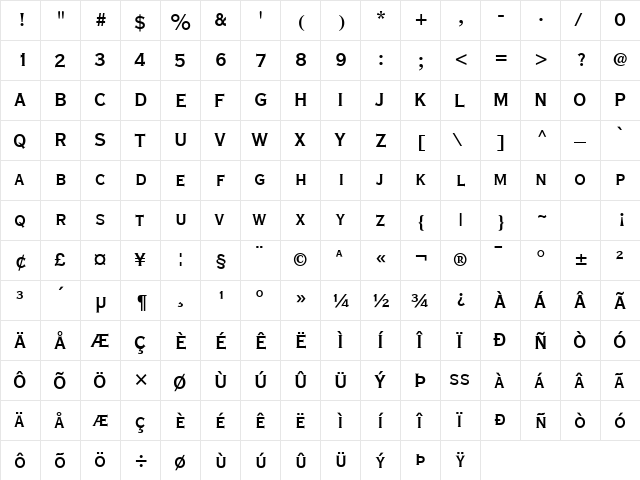
Copperplate Extra Condensed SSi Bold Extra Condensed Font Preview
Design Context for Copperplate Extra Condensed SSi Typeface
Copperplate Extra Condensed SSi offers clean, dependable letterforms without strong stylistic allegiance, making it a practical choice for designers who need flexibility. The heavy weight commands attention and anchors typographic hierarchies. The condensed width makes it efficient for tight spaces without sacrificing legibility.